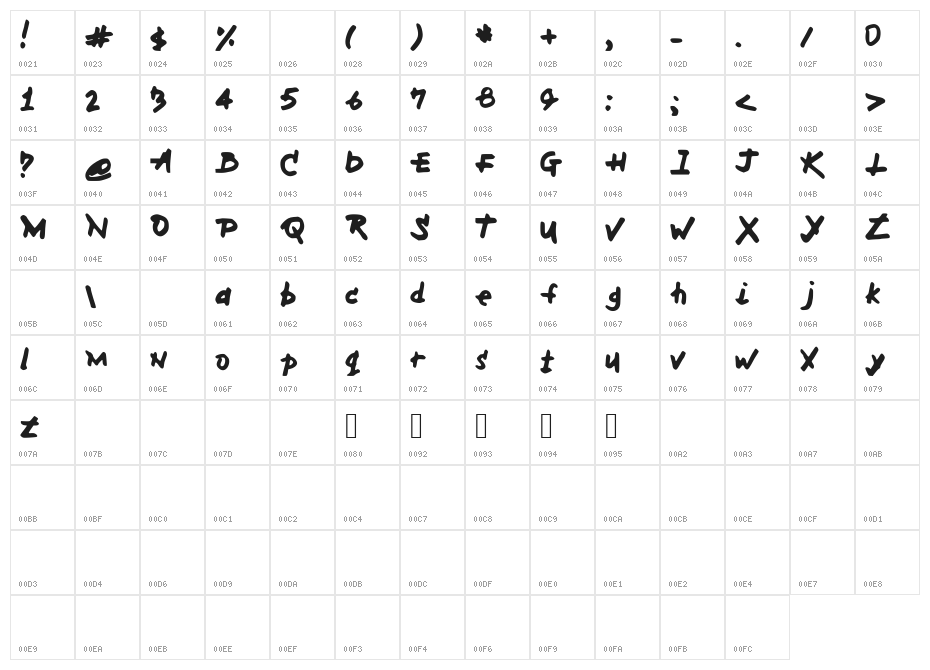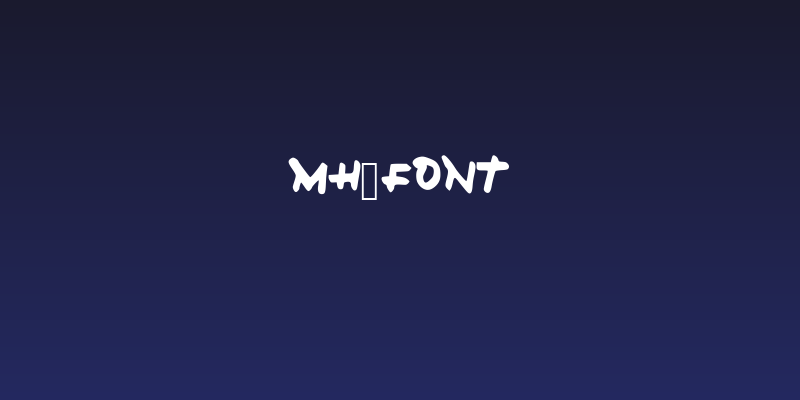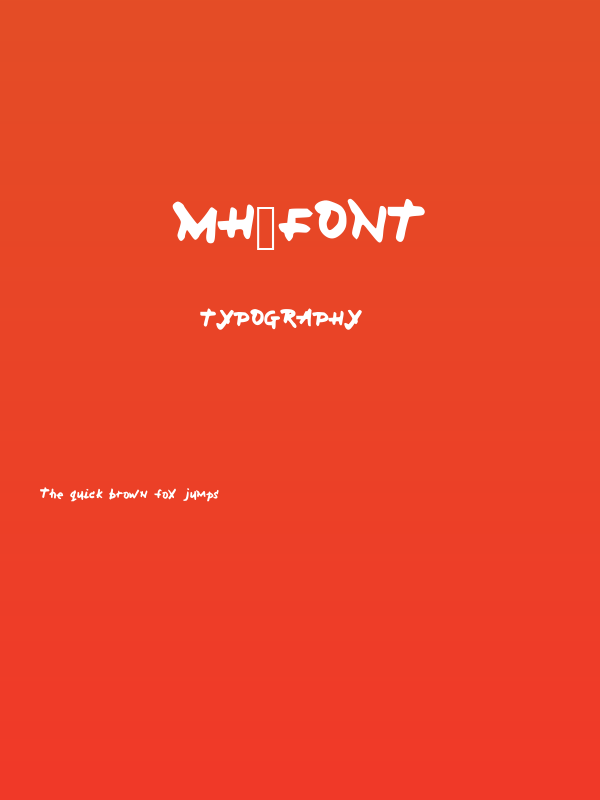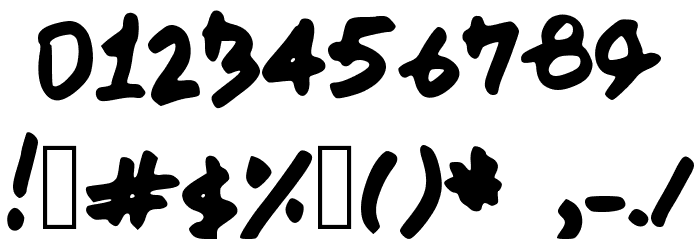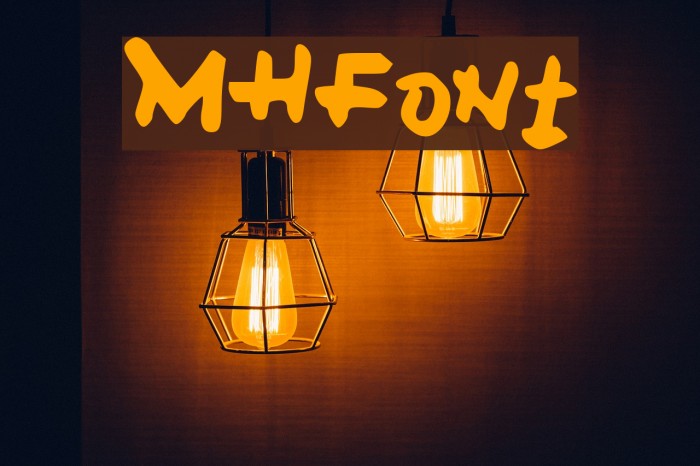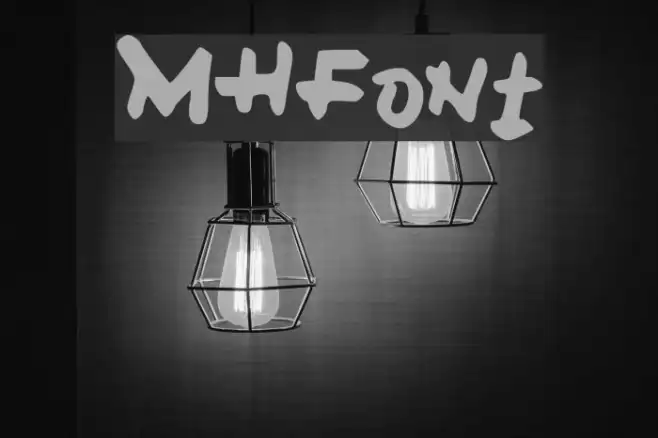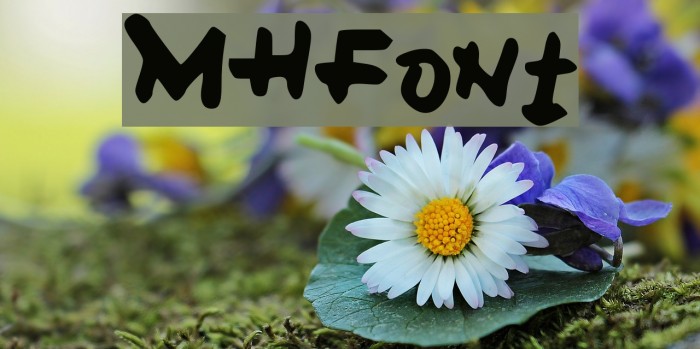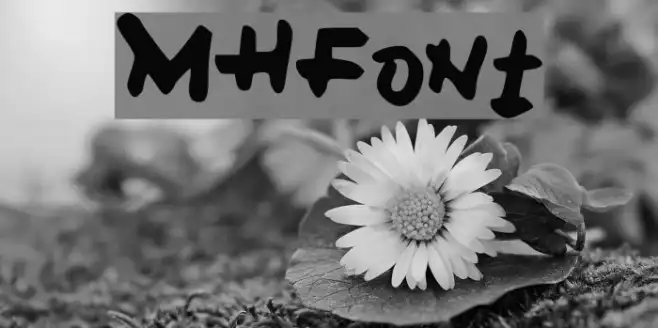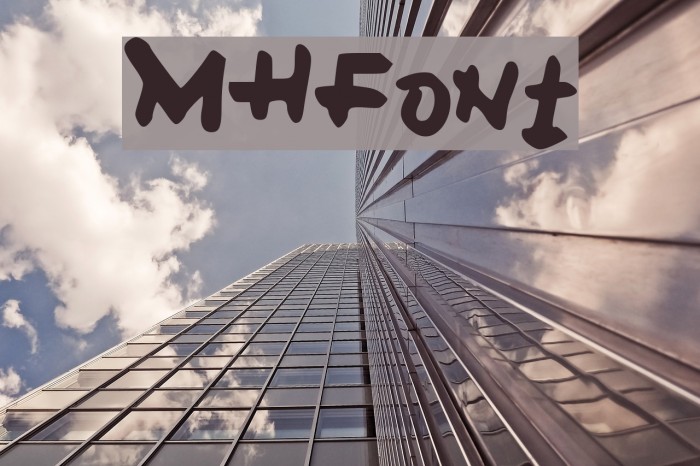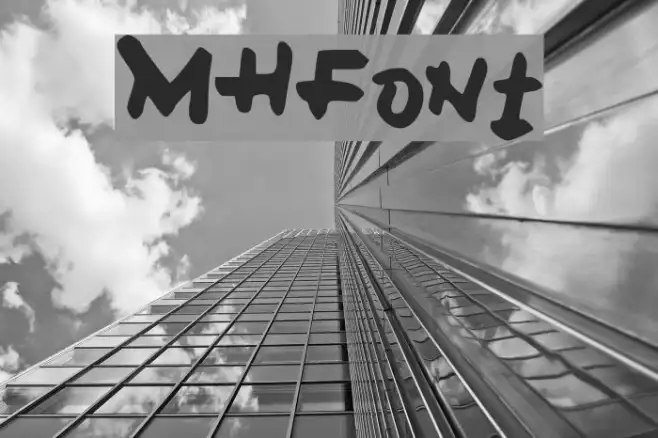
MH_Font Font
MH_Font Description
This font features a bold and playful handwritten style, characterized by its thick strokes and casual, informal appearance. The letters are slightly slanted, giving a dynamic and energetic feel. The uppercase and lowercase letters maintain a consistent style, with rounded edges and a slightly irregular baseline, adding to its charm. The numbers and special characters follow the same aesthetic, ensuring a cohesive look across all elements. This font is ideal for projects that require a personal touch or a fun, approachable vibe.
| Overall Style | Playful, Casual |
| Use Case | Headlines, Logos, Informal Invitations |
| Proposed Projects | Great for greeting cards, children's books, playful branding, and social media graphics. |